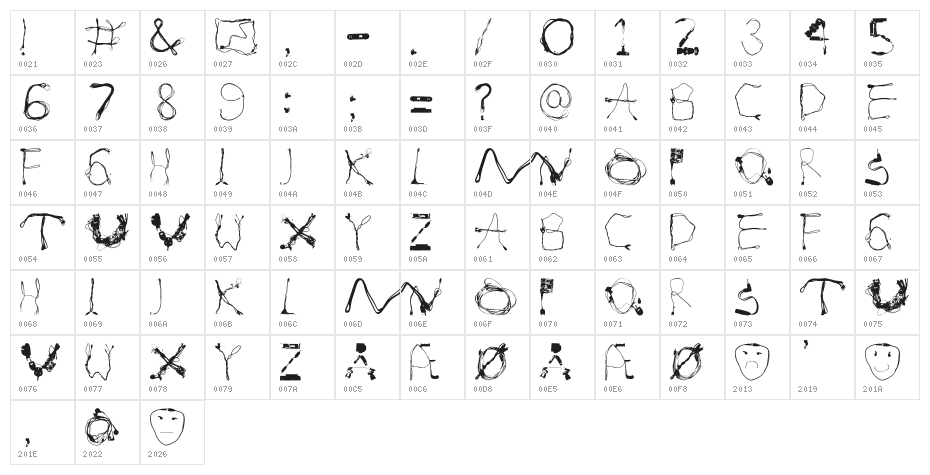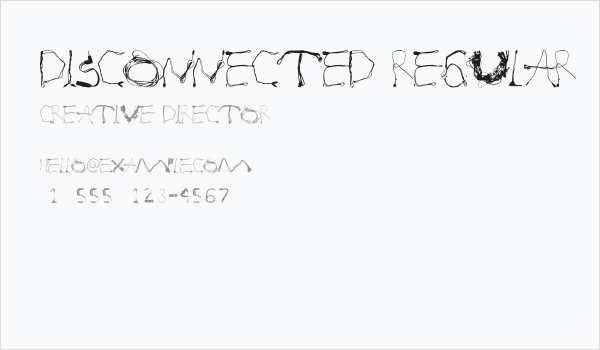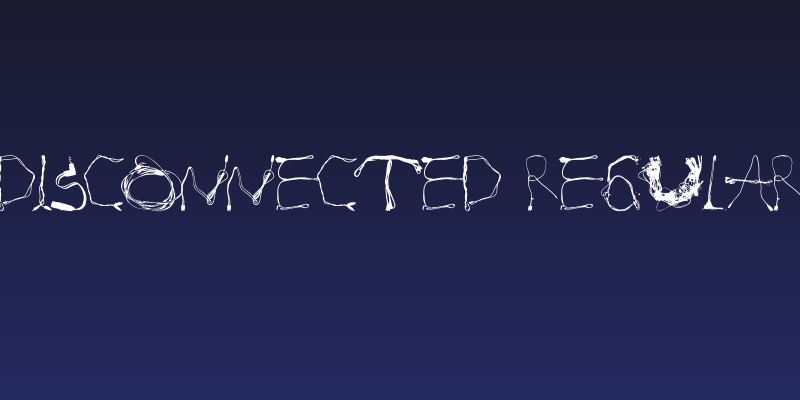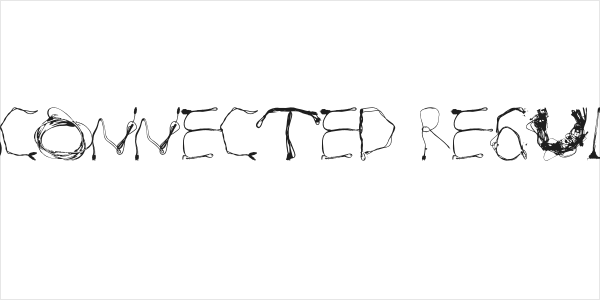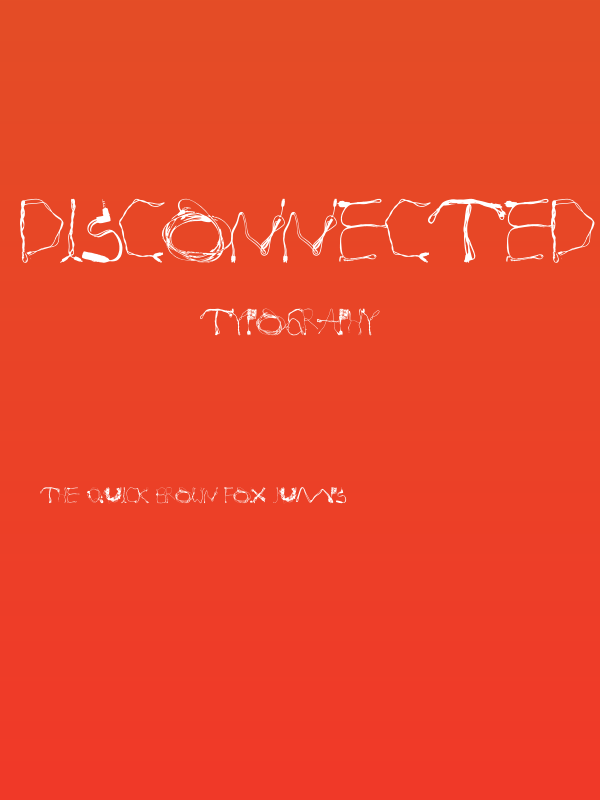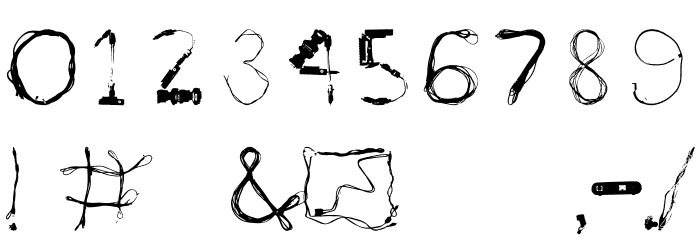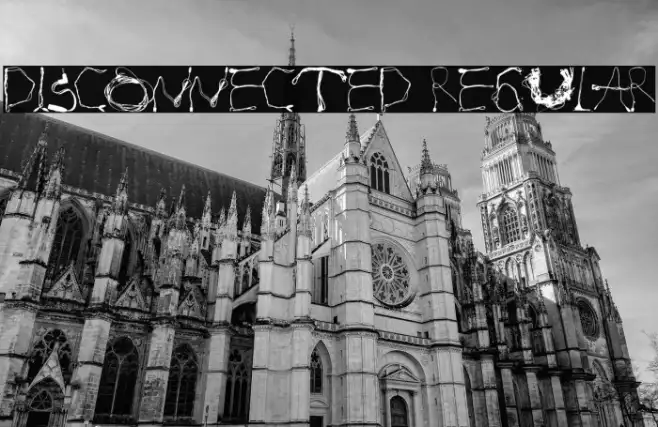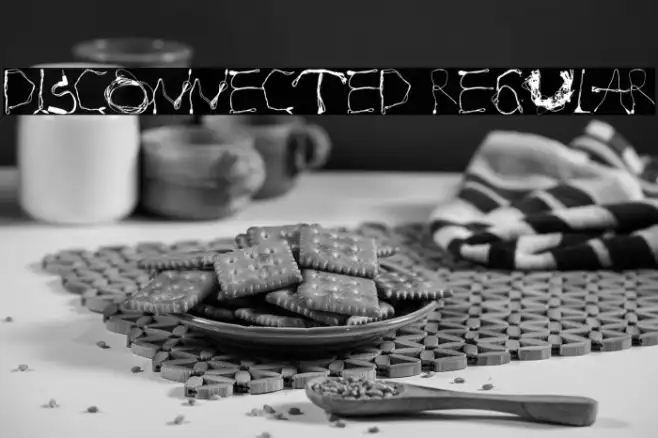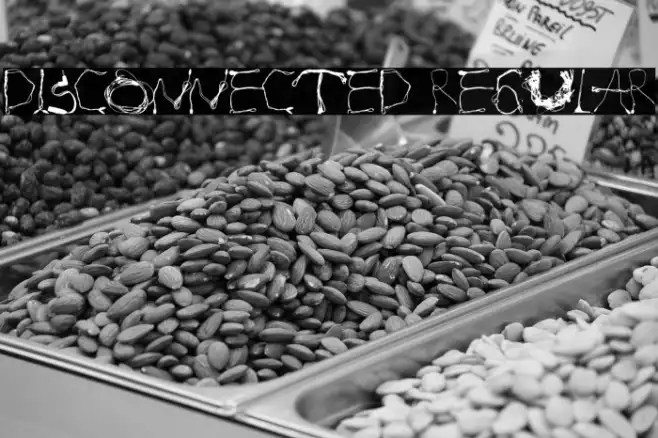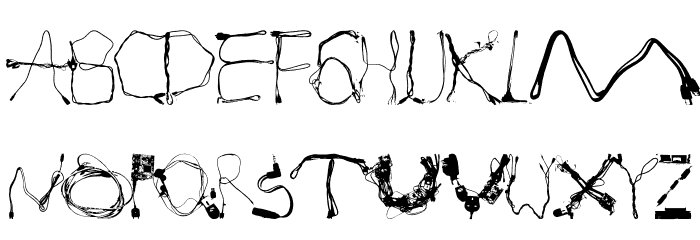
Disconnected Regular Font
Disconnected Regular Description
This font features a unique and creative design where each character is formed by a series of tangled wires or cords. The letters have an organic, hand-crafted appearance, with varying thickness and irregular shapes that give them a dynamic and chaotic feel. The uppercase and lowercase letters maintain this theme, creating a cohesive yet unpredictable look. Numbers and special characters follow the same style, ensuring consistency across all elements. This font is perfect for projects that require a distinctive and unconventional aesthetic, capturing attention with its intricate and artistic design.
| Overall Style | Artistic, Unconventional |
| Use Case | Logos, Posters, Creative Branding |
| Proposed Projects | Ideal for artistic posters, album covers, creative branding, and any project seeking a distinctive and unconventional style. |